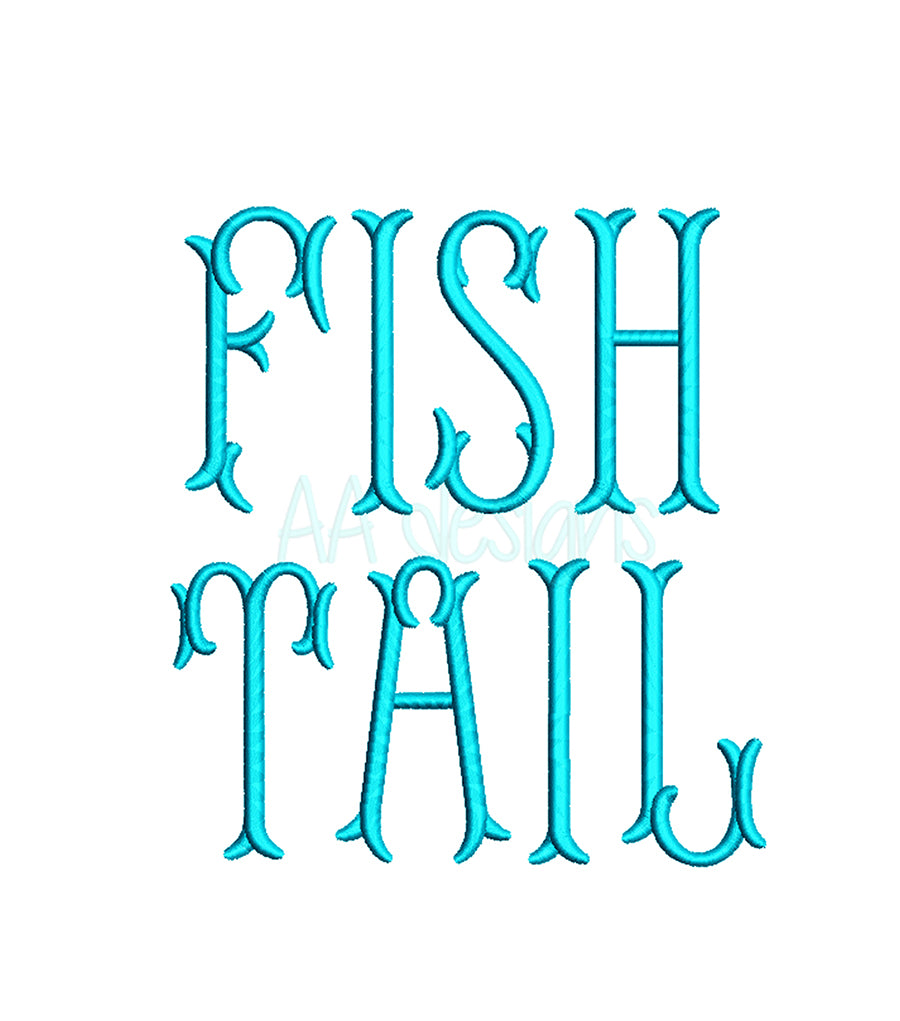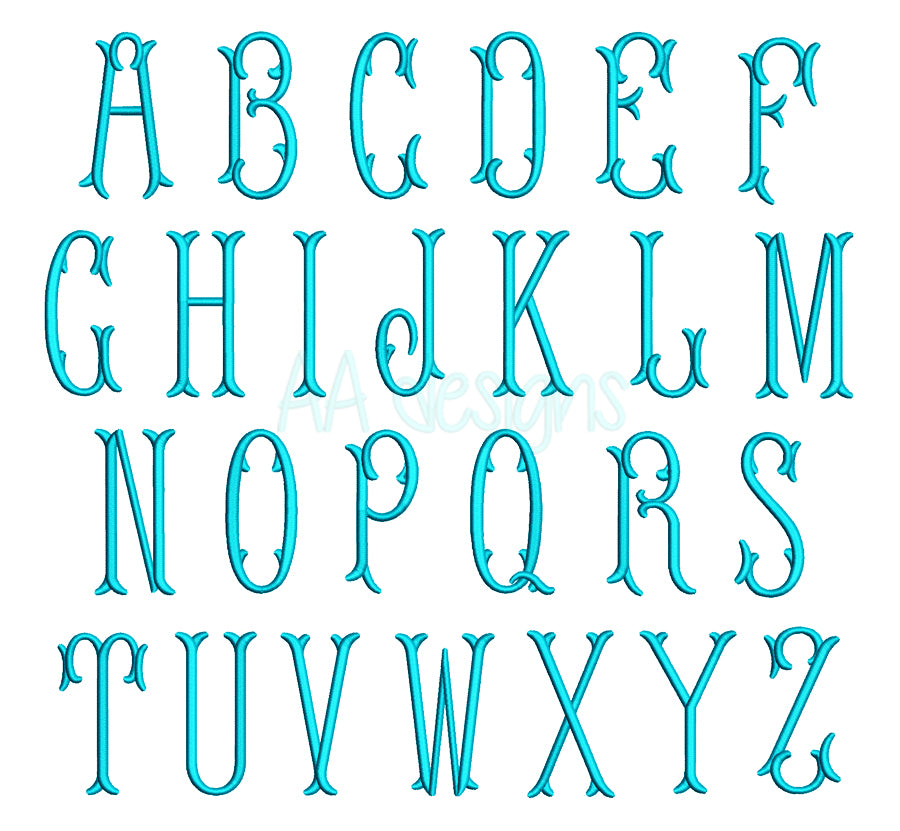
About This Font
The Fishtail embroidery font features elegant serif-style uppercase letters with a distinctive fishtail finish. Its refined, decorative style makes it a go-to choice for monograms, gifts, and premium personalized items.
Perfect For
- Bow tags, gift tags, and ornaments
- Newborn onesies and baby items
- Monogrammed towels and linens
- Tote bags and accessories
- Wedding and bridal keepsakes